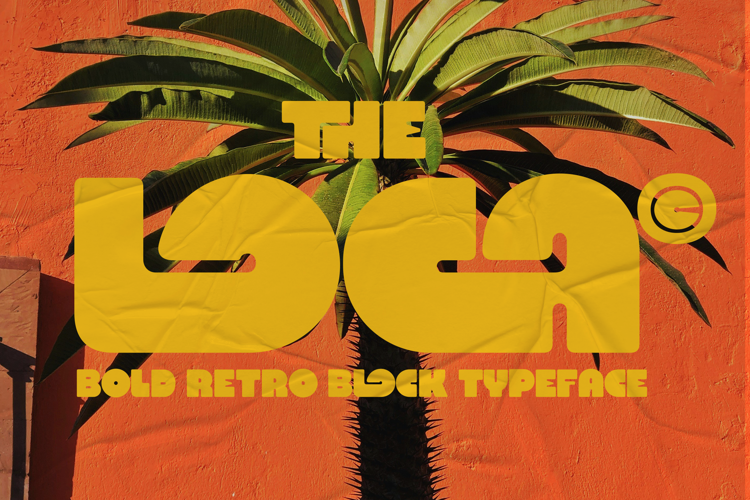
Loca Font
Introducing The Loca, a bold retro block typeface that captures the essence of 70s sunshine and street culture. With its chunky shapes, rounded corners, and playful letterforms, this font brings a vibrant attitude and nostalgic charm to any design.